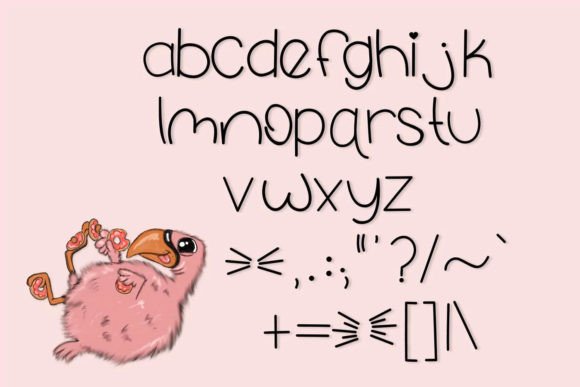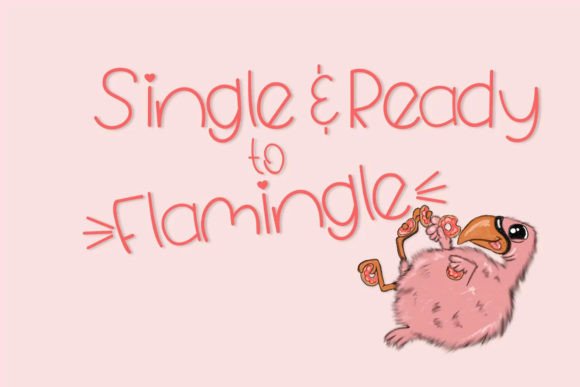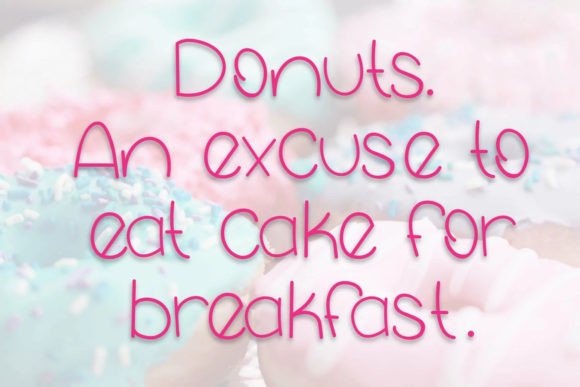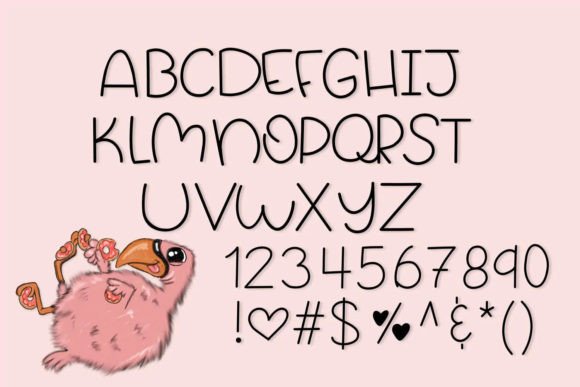
Introducing Fluffy Flamingo Font: Add a Touch of Whimsy to Your Designs
Are you tired of using the same old fonts in your designs? Look no further than Fluffy Flamingo, a cute handwritten font that’s sure to add a touch of whimsy to your projects. With its heart-shaped “i” dots and fun letters, Fluffy Flamingo is the perfect choice for designers and crafters looking to create something unique and eye-catching.
What Makes Fluffy Flamingo Special?
Fluffy Flamingo features a range of characteristics that set it apart from other fonts. Here are just a few of the things that make it special:
- Heart-shaped “i” dots: The heart-shaped “i” dots add a playful touch to your designs, making them perfect for projects that require a bit of personality.
- Fun letters: The fun, handwritten letters in Fluffy Flamingo are sure to bring a smile to your face. They’re perfect for creating designs that are lighthearted and playful.
- Unique look: The combination of heart-shaped “i” dots and fun letters gives Fluffy Flamingo a unique look that’s sure to stand out in a crowd.
Uses for Fluffy Flamingo
Fluffy Flamingo is a versatile font that can be used on a wide range of projects. Here are just a few ideas to get you started:
- Water bottles: Add a touch of personality to your water bottles with Fluffy Flamingo. It’s the perfect font for creating fun and colorful designs.
- Decals: Fluffy Flamingo is a great choice for decals, whether you’re creating them for cars, laptops, or water bottles.
- Bags: Add a playful touch to your bags with Fluffy Flamingo. It’s perfect for creating designs that are fun and eye-catching.
- Shirts: Fluffy Flamingo is a great choice for shirts, whether you’re creating custom designs for a special occasion or just want to add a bit of personality to your wardrobe.
- New projects: The possibilities are endless with Fluffy Flamingo. Use it to create custom designs for any project that requires a bit of whimsy and personality.
Why Designers and Crafters Love Fluffy Flamingo
Fluffy Flamingo has quickly become a favorite among designers and crafters. Here are just a few reasons why:
- Easy to use: Fluffy Flamingo is easy to use, even for those who are new to design. It’s a straightforward font that’s easy to work with.
- High-quality design: Fluffy Flamingo is a high-quality font that’s designed to look great on any project. Whether you’re creating a digital design or a physical product, Fluffy Flamingo will look amazing.
- Unique look: As mentioned earlier, Fluffy Flamingo has a unique look that’s sure to stand out in a crowd. It’s the perfect choice for designers and crafters who want to create something truly special.
Tips for Using Fluffy Flamingo
Here are a few tips for using Fluffy Flamingo in your designs:
- Experiment with colors: Fluffy Flamingo looks great in a wide range of colors. Experiment with different colors to find the perfect combination for your design.
- Play with sizes: Fluffy Flamingo can be used at a variety of sizes, from small to large. Play around with different sizes to find the perfect fit for your design.
- Combine with other fonts: Fluffy Flamingo can be combined with other fonts to create a unique look. Experiment with different font combinations to find the perfect fit for your design.
Fluffy Flamingo is a fun and unique font that’s perfect for designers and crafters. With its heart-shaped “i” dots and fun letters, it’s sure to add a touch of whimsy to your designs. Whether you’re creating custom designs for water bottles, decals, bags, shirts, or something new, Fluffy Flamingo is the perfect choice. So why wait? Download Fluffy Flamingo today and start creating your own unique designs!